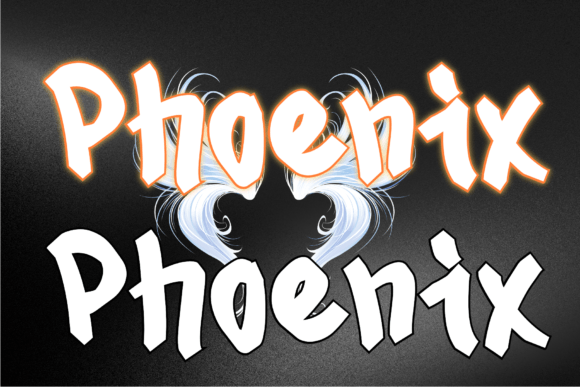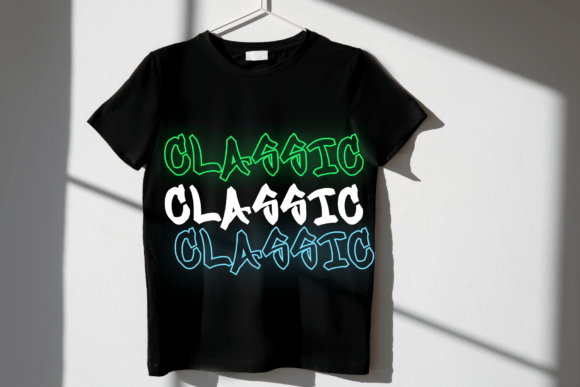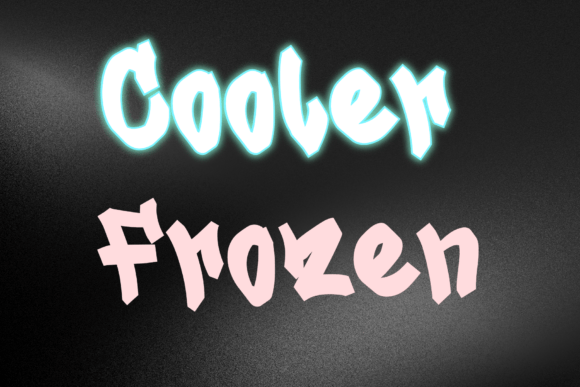
Introduction to Non Rule Font
As a designer, you know the thrill of discovering a new high-quality font that elevates your creative project to the next level. It’s like stumbling upon a hidden treasure that makes your design shine. For many of us, that moment of discovery is what drives us to keep pushing the boundaries of what’s possible with design. And that’s exactly what the Non Rule Font does – it’s a game-changer for designers who crave a modern and minimalist design resource that’s both impactful and versatile.
The Non Rule Font is a display font that’s perfect for bold headlines, logos, and other display purposes where legibility and visual impact are key. With its sleek and modern design, it’s no wonder why designers are falling in love with this font for all sorts of creative projects, from branding and editorial layouts to web design, packaging, and signage.
Key Features of Non Rule Font
- High-quality design resource ideal for creative projects, including digital art, graphics, and web design.
- Unique, modern design with a transparent background, allowing for easy customization and versatility.
- Includes multiple font styles, including bold, italic, and regular, to cater to diverse design needs.
- Designed with a high resolution of 300 DPI, ensuring crisp and clear text display in various applications.
- Perfect for designers seeking a modern, high-quality font to elevate their creative project.
Honest Review: Non Rule Font
- ✨ High-quality design: The Non Rule Font is incredibly detailed and has a unique aesthetic that sets it apart from other fonts.
- ✨ Versatile: The font comes in various styles and weights, making it suitable for a wide range of creative projects, from logos to brochures.
- ✨ Transparent background: The font’s transparent background makes it easy to customize and pair with other design elements.
- ⚠️ Limited character set: The font’s character set is not as extensive as some other fonts, which may limit its use for certain projects.
- ⚠️ Not ideal for large-scale text: While the font looks great for smaller text, it may not be the best choice for large-scale text due to its unique design.
Overall, I’m impressed with the Non Rule Font. Its unique design and high-quality aesthetic make it an excellent addition to any design library. While it may have some limitations, it’s definitely worth considering for your next creative project.
How to Use Non Rule Font
The Non Rule Font is a unique design resource that can add a creative touch to your projects. This high-quality font features a transparent background, making it perfect for overlaying on images or using as a standalone element.
Experiment with different font sizes, colors, and opacity levels to get the most out of the Non Rule Font. You can also combine it with other design elements for a unique look.
The Non Rule Font is perfect for creative projects such as:
- UI/UX design
- Branding
- Marketing materials
Comparison to Non Rule Font: Great Vibes has a more refined and polished look, making it a better choice for high-end designs. While Non Rule Font is more playful, Great Vibes is more sophisticated.
2. Carolyna Pro
Carolyna Pro is a versatile font that is perfect for designers looking for a reliable design resource. It features a modern design and is available for free download. When to use: Corporate branding, business cards, or any design that requires a clean and professional look.